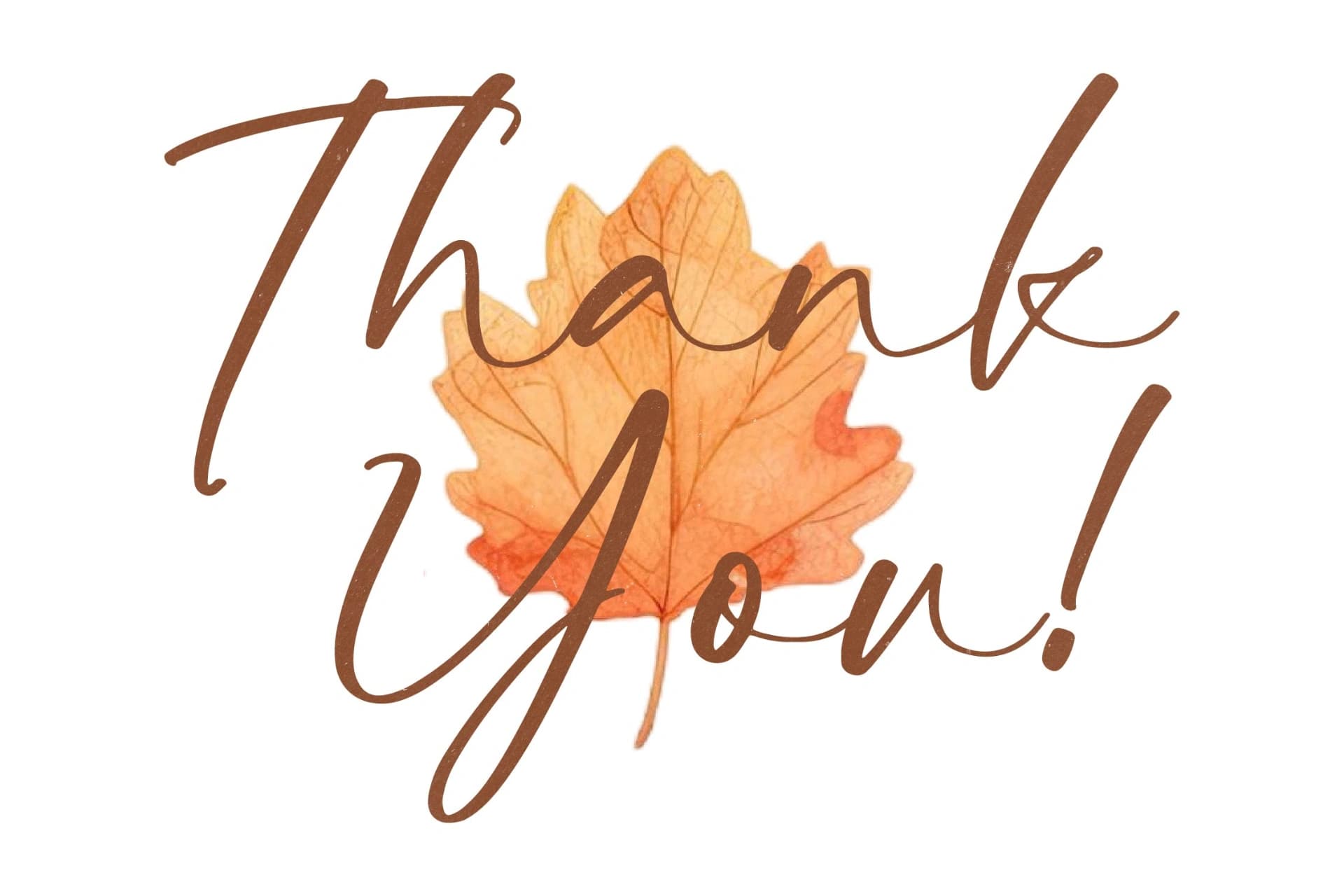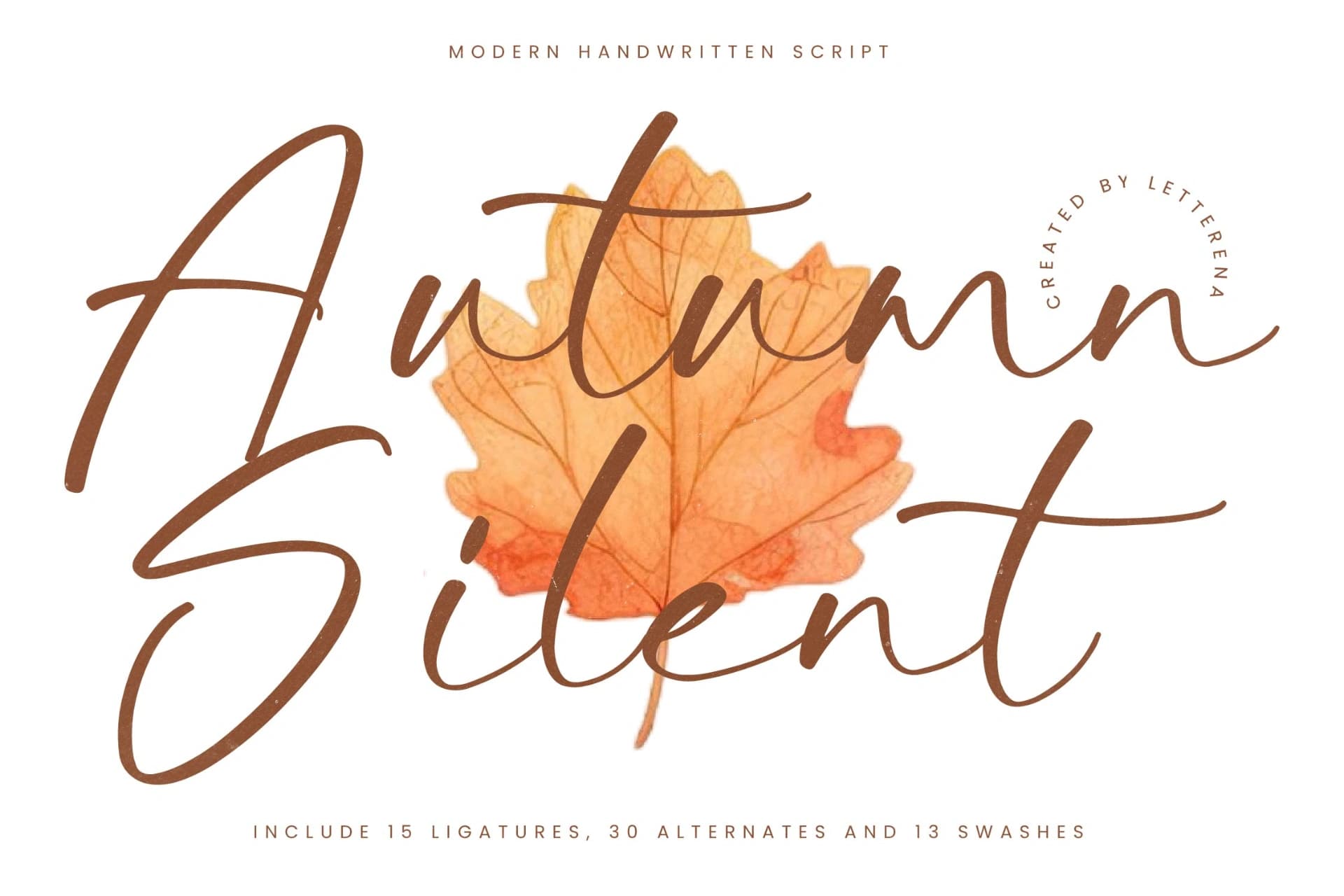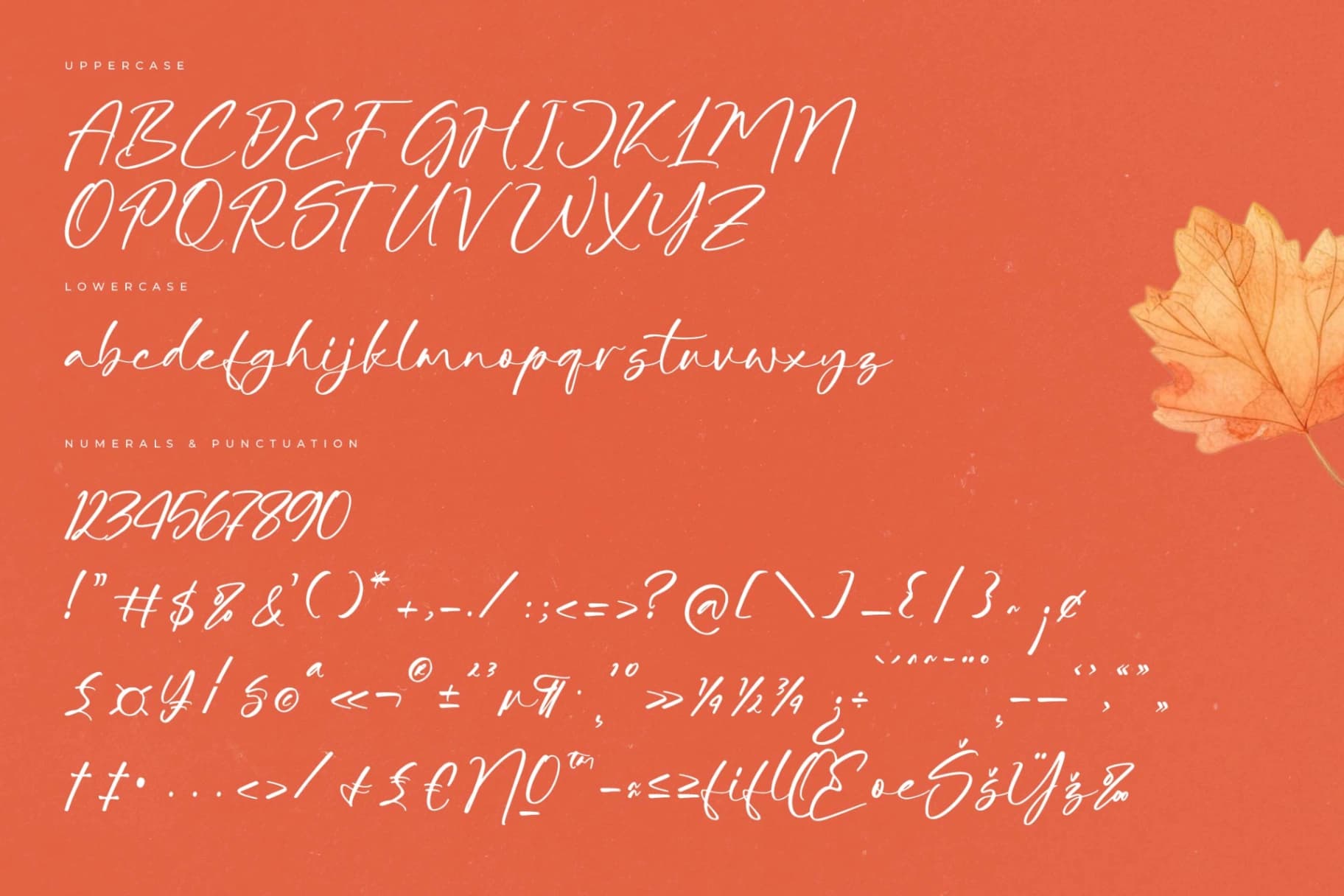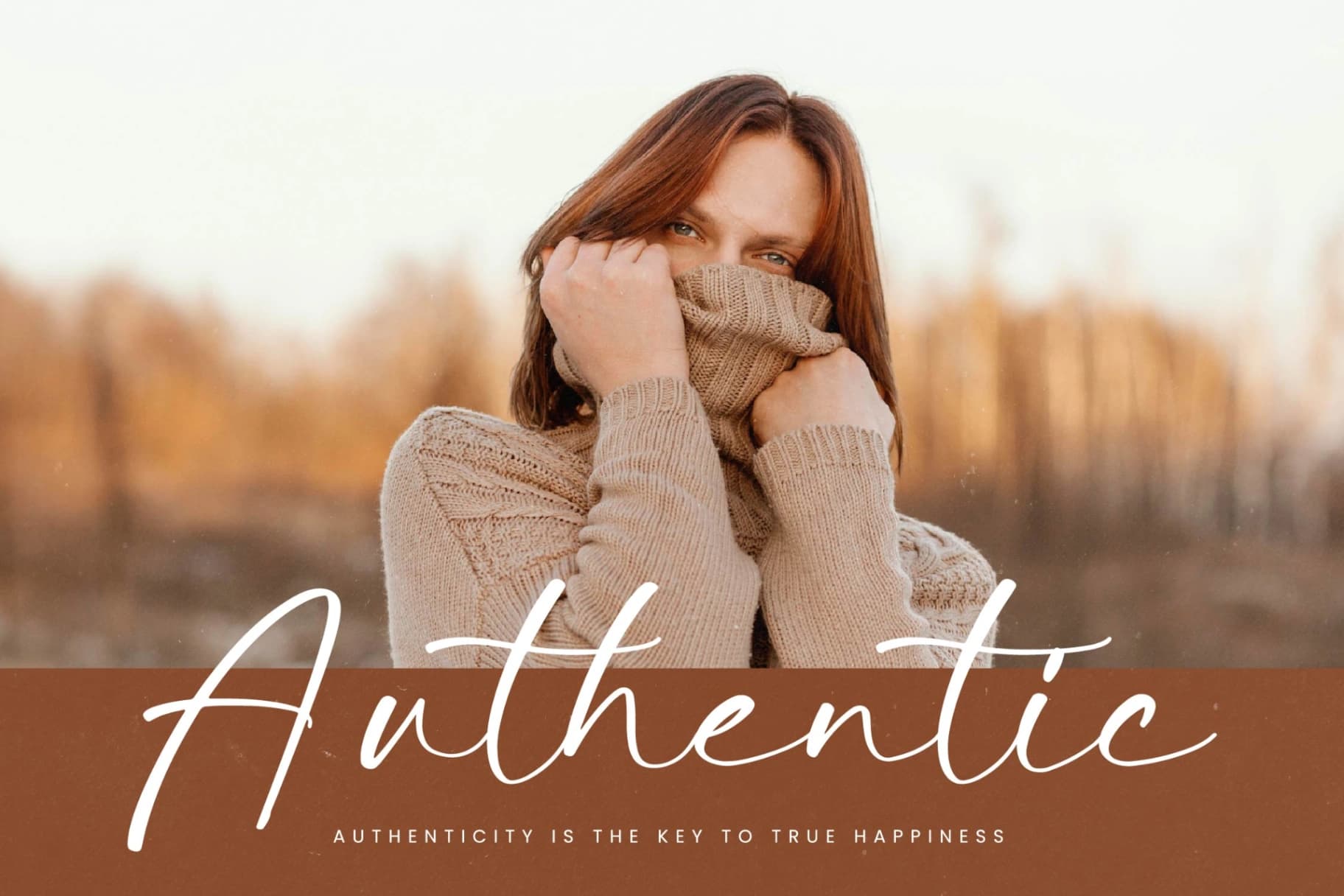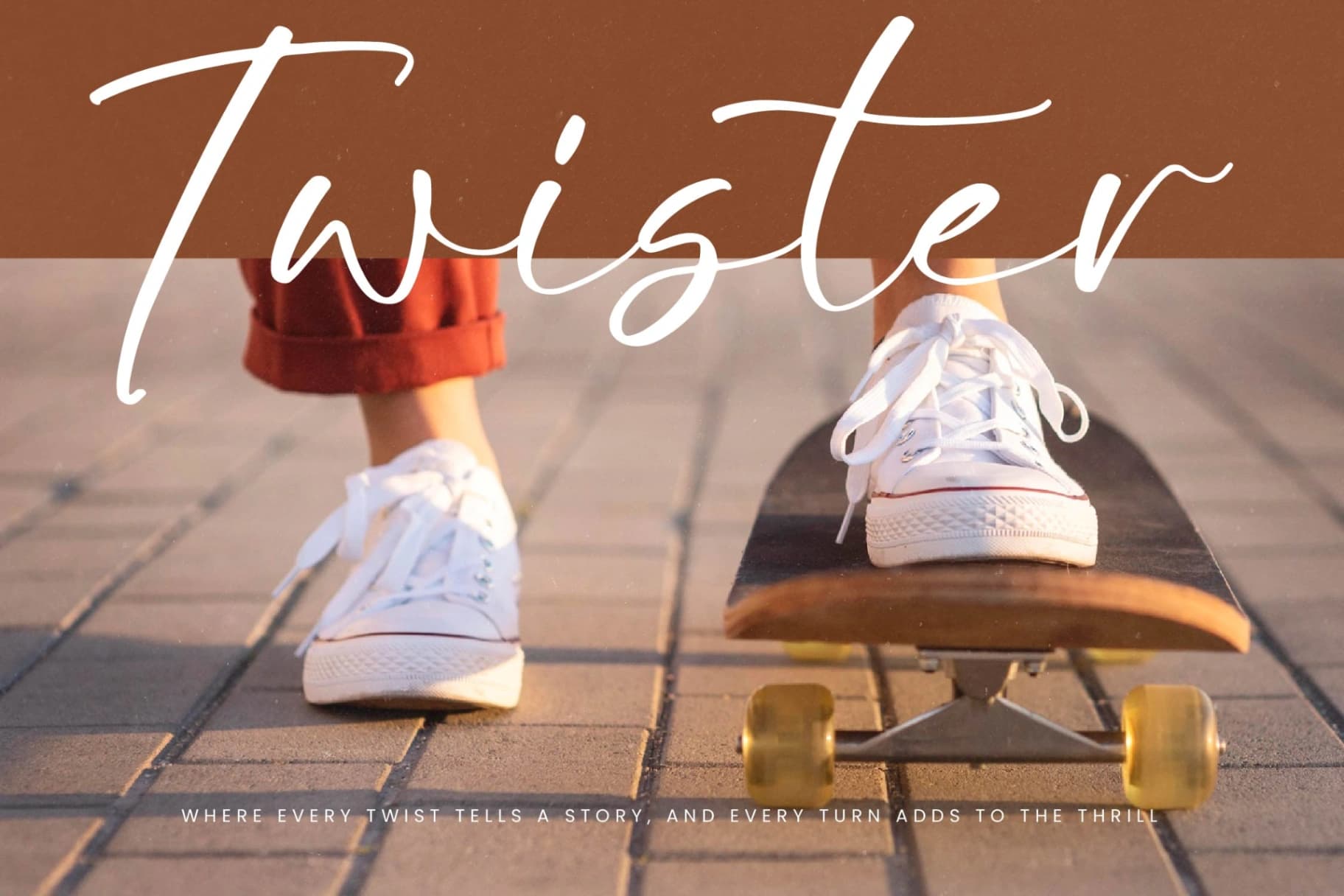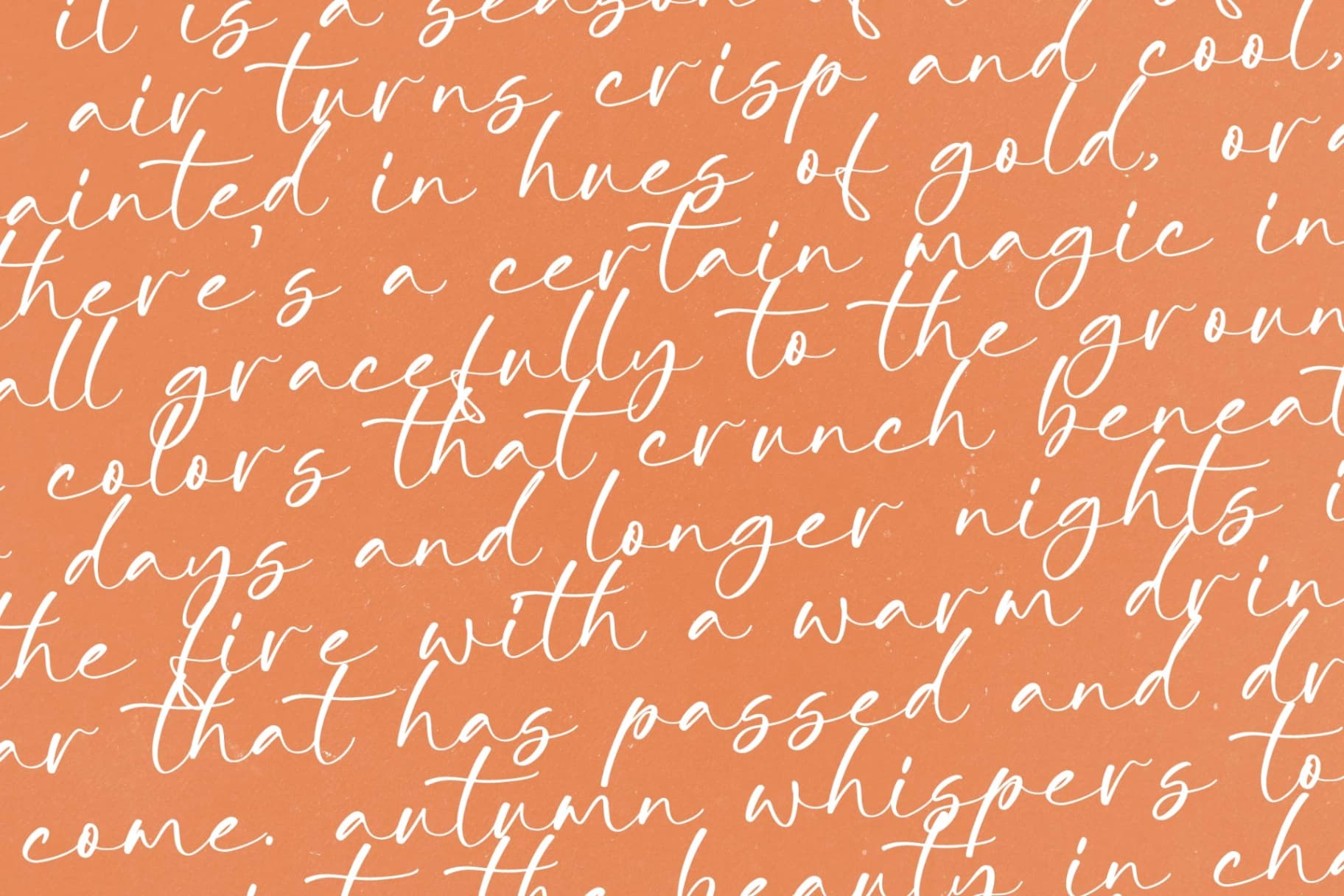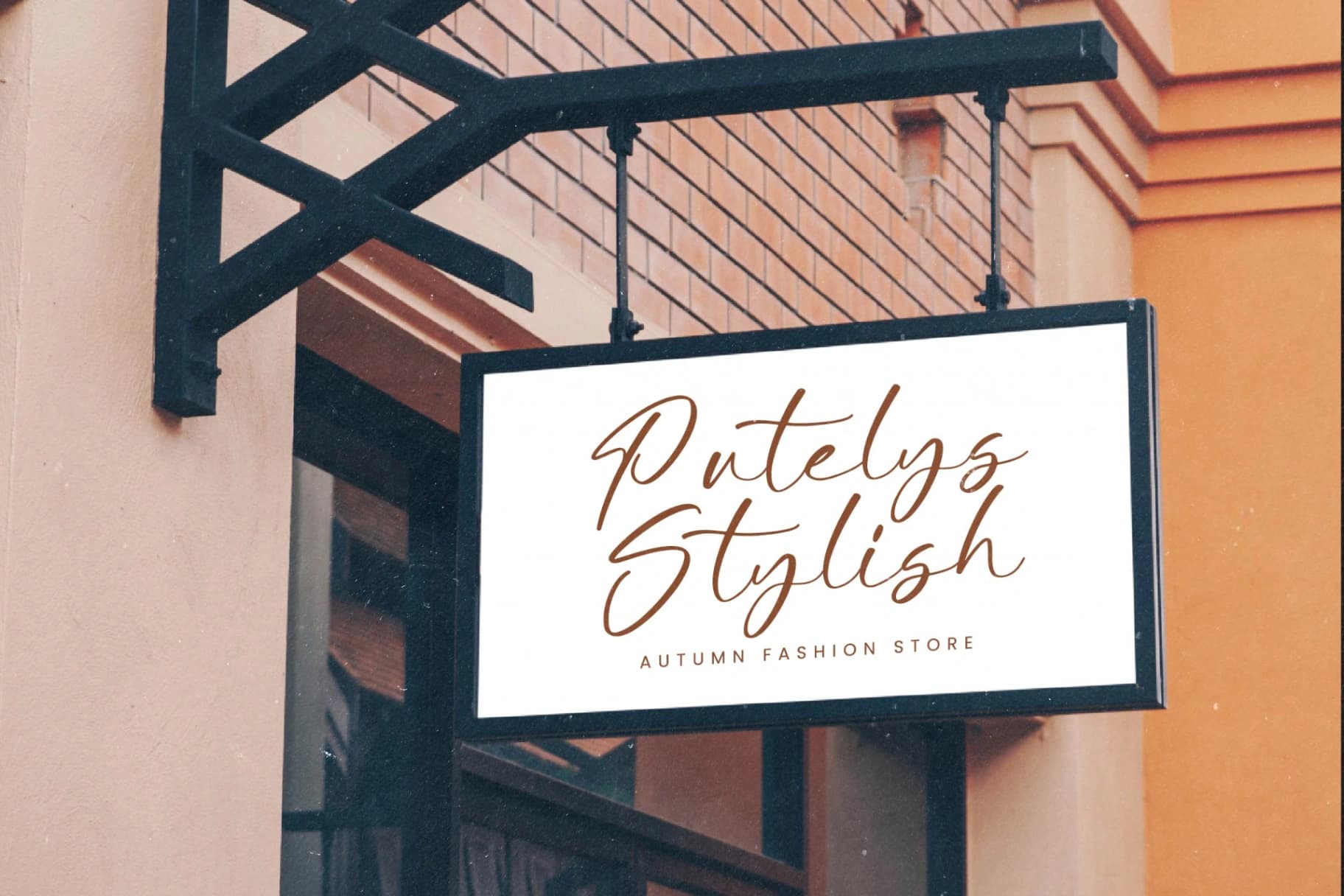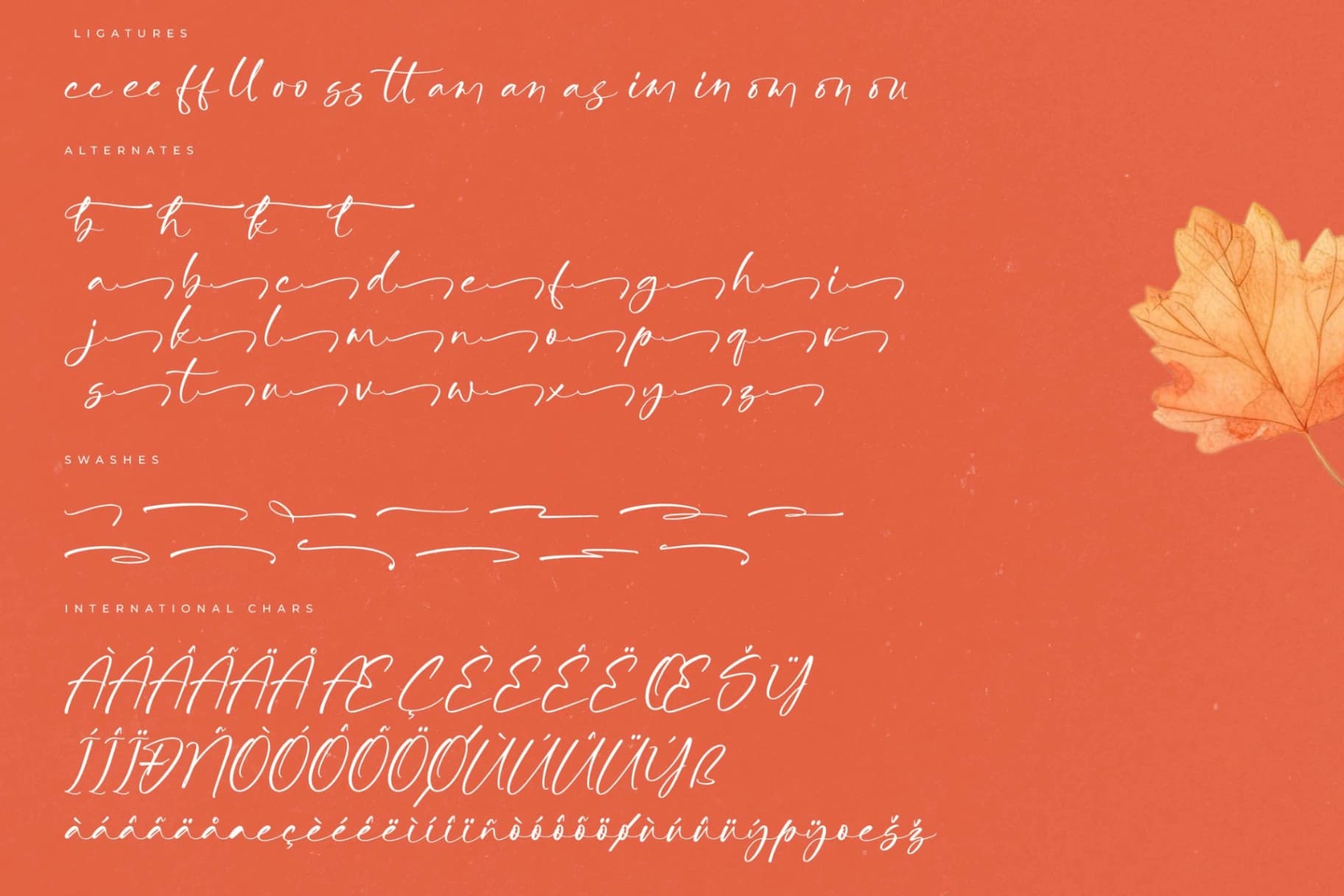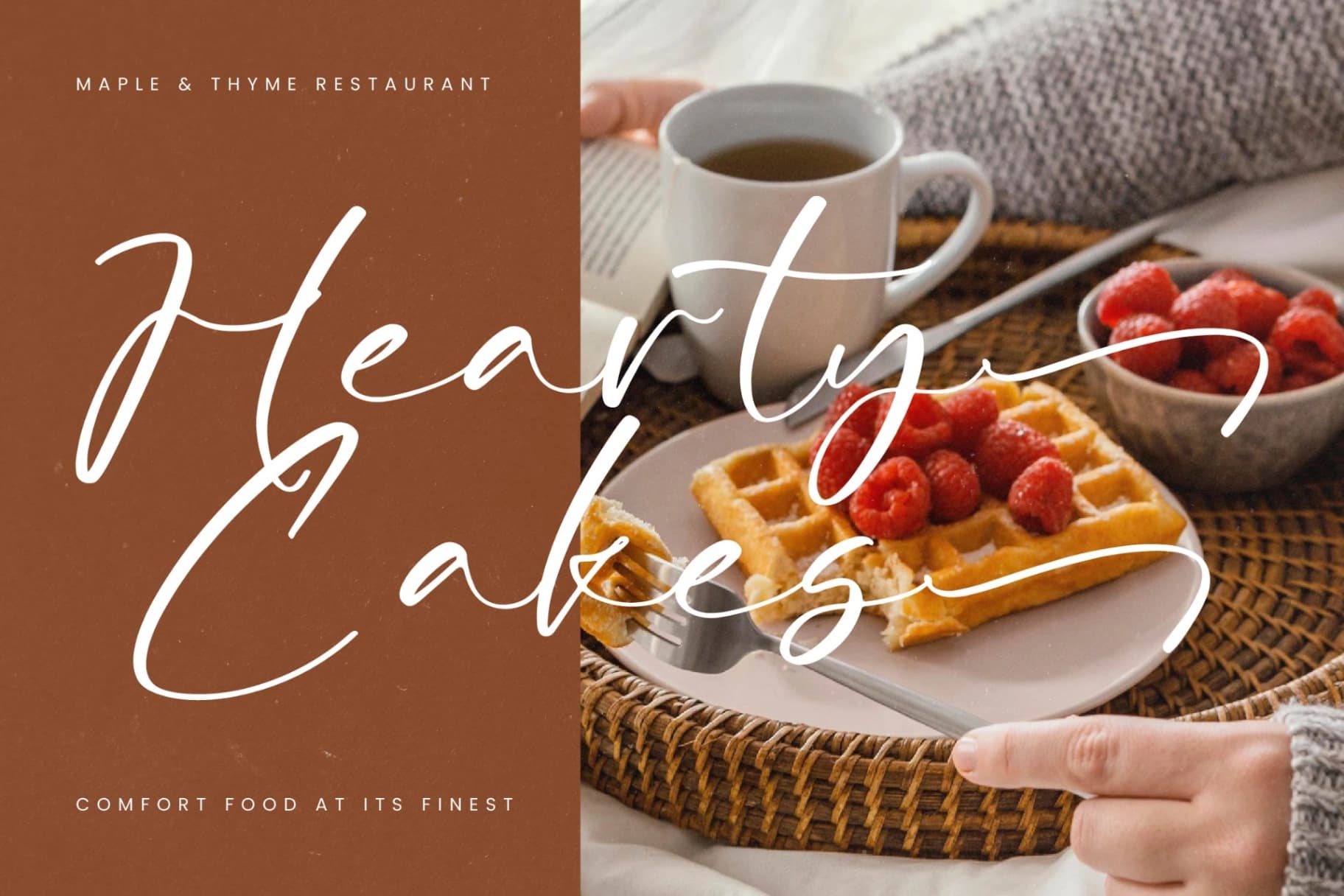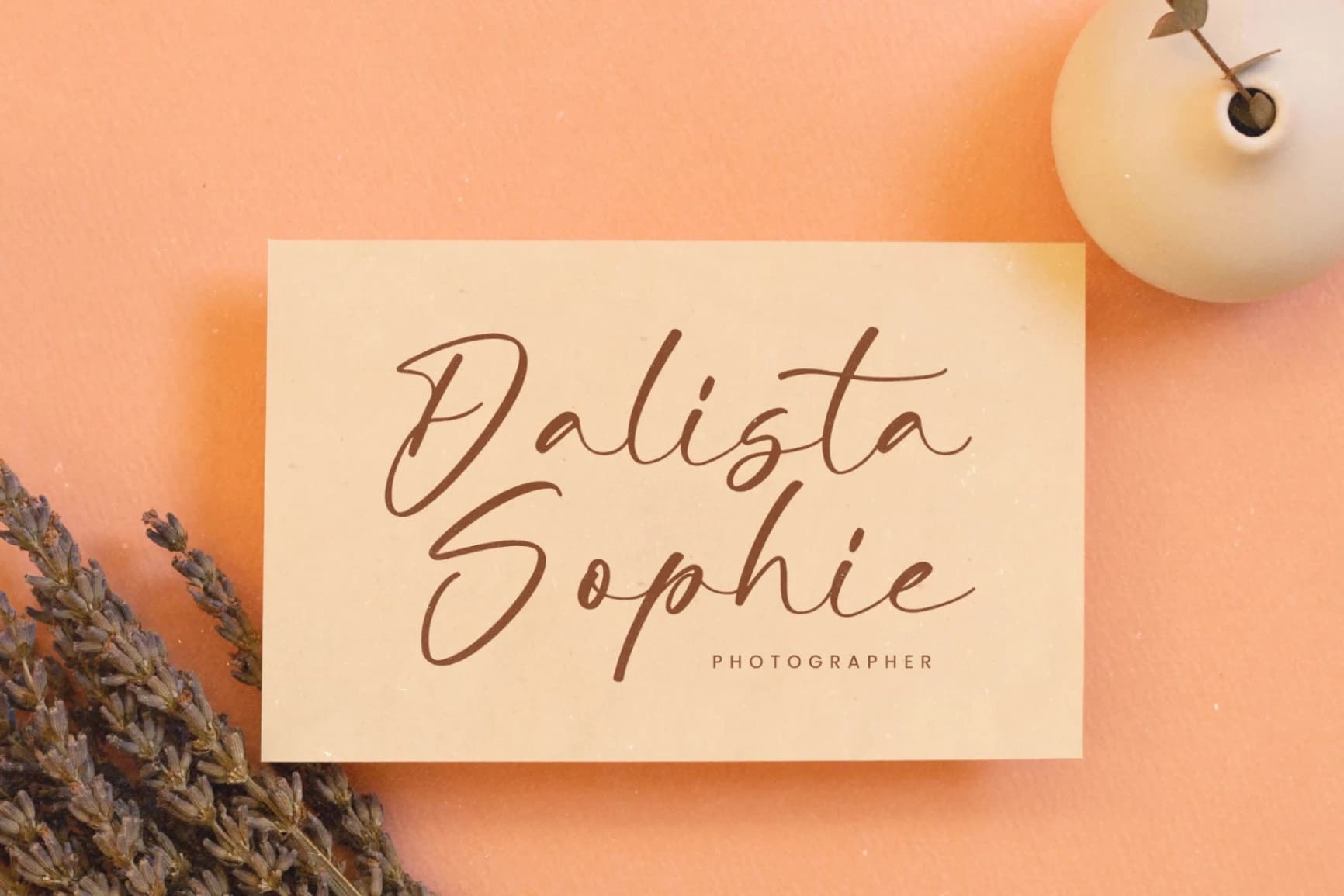
Autumn Silent – Modern Handwritten Script
Elevate your design projects with the effortless grace of Autumn Silent – Modern Handwritten Script. This fluid, signature-style typeface embodies genuine human touch combined with refined contemporary elegance. Characterized by smooth connectivity and a natural, slightly bouncing rhythm, this script delivers immediate visual warmth, making it ideal for creatives seeking an authentic yet polished presentation. The varied stroke weight adds a subtle, high-quality dynamic, ensuring your text carries a distinct, premium handcrafted appeal.
Unlock unparalleled customization through robust OpenType features included within Autumn Silent – Modern Handwritten Script. Designers can leverage the generous set of over 30 stylistic alternates, 15 crucial ligatures, and 13 decorative swashes to craft truly unique typographic lockups. This extensive toolkit provides the power to transform simple headlines into captivating visual statements, offering endless variations for personalized branding assets and specialized design work requiring natural flow.
Achieve global brand consistency with seamless language compatibility. With its extensive multilingual support, Autumn Silent – Modern Handwritten Script adapts seamlessly across global markets, making it incredibly versatile for international projects. This attention to global detail ensures that whether your audience is local or spans continents, the font’s inherent elegance and readability remain intact across diverse character sets, promoting effortless expansion and professional worldwide communication.
This typeface is the definitive choice for design requiring a personal yet upscale feel. Autumn Silent – Modern Handwritten Script is perfect for luxury branding, artisanal product packaging, wedding stationery, sophisticated social media graphics, and high-end editorial titles. Invest in this elegant script today to inject your client work with warmth, high-quality craftsmanship, and unforgettable visual sophistication, ensuring your design commands attention.